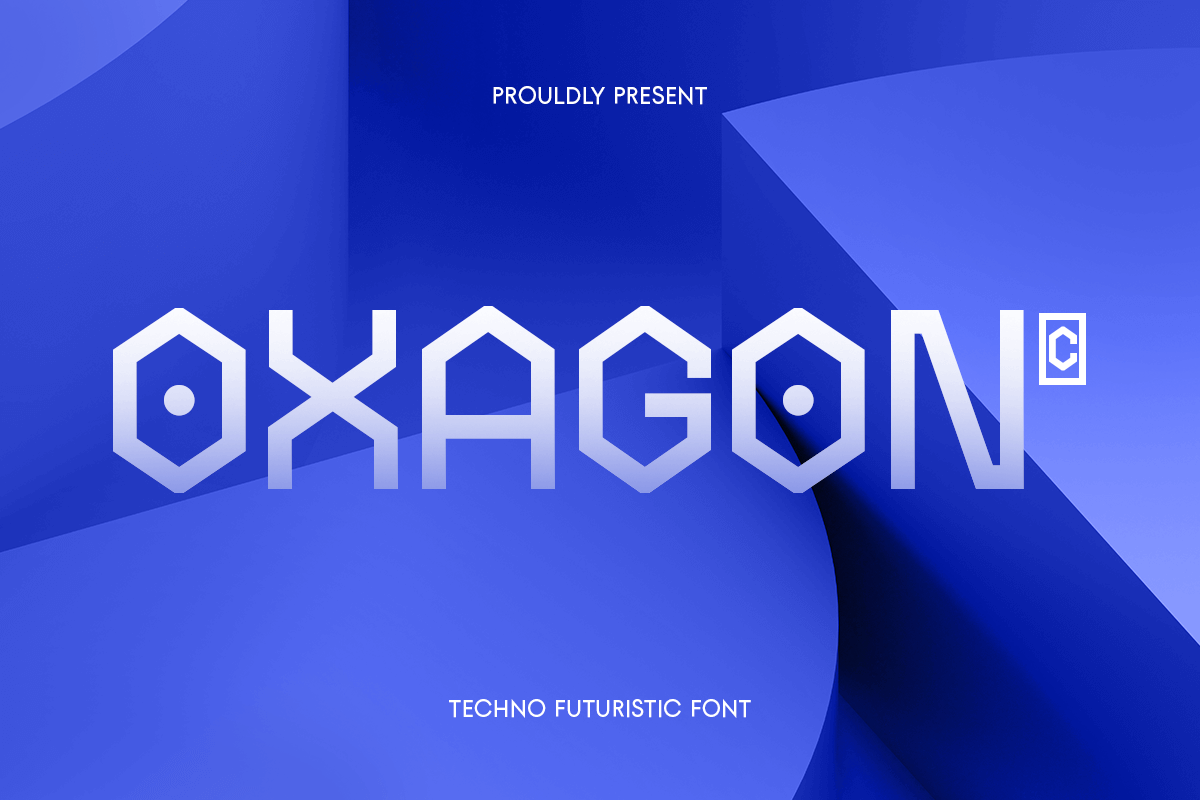
Oxagon
-Techno Futuristic Font
oxagon italic
oxagon regular
oxagon italic rounded
oxagon rounded
Oxagon - Techno Futuristic Font
Oxagon is a techno-futuristic font designed for high-tech branding, digital interfaces, sci-fi projects, and cyberpunk aesthetics. With its bold, geometric letterforms and sleek angles, this typeface embodies the future of technology, gaming, and space-age design.
Perfect for modern tech startups, futuristic logos, esports branding, and electronic music posters, Oxagon font delivers a digital-forward aesthetic that feels innovative and dynamic. Its sharp edges and minimalist structure make it ideal for UI/UX designs, sci-fi movie titles, robotics, and AI-inspired visuals.
Step into the future of typography with Oxagon font, a font that defines cutting-edge style and digital evolution.
Oxagon Font - Techno Futuristic Font Features:
• Ready with 4 Styles: Regular, Rounded, and Italic in Between
• Bold and modern techno-inspired letterforms
• Perfect for sci-fi, gaming, and tech branding
Create futuristic, tech-inspired designs with Oxagon font —the perfect font for digital innovation and next-gen aesthetics.